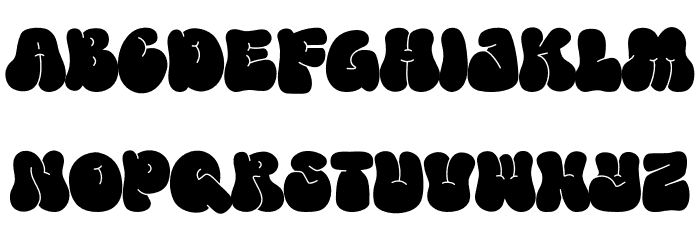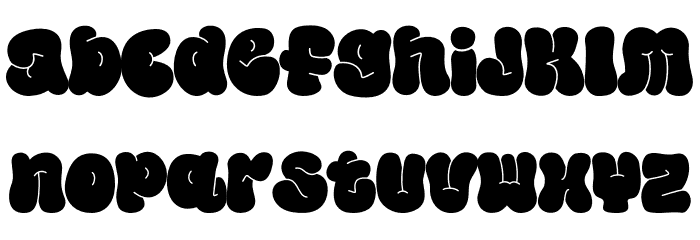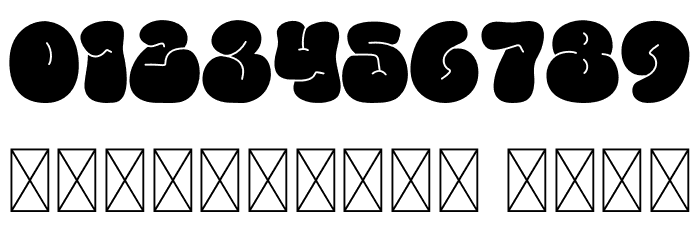
Whoopie Sunday DEMO Font
This font features a bold and playful design with thick, rounded shapes that give it a bubbly and whimsical appearance. The characters are heavily weighted, creating a strong visual impact. The overall style is reminiscent of retro or vintage designs, with a modern twist. The letters are closely spaced, enhancing the compact and cohesive look. The font's unique style makes it suitable for creative and fun projects, where a sense of playfulness is desired. The high contrast between the thick strokes and the negative space adds to its eye-catching nature.
A bold, playful font with thick, rounded shapes and a whimsical retro style.
- Font: Whoopie Sunday DEMO
- Proposed Projects: Ideal for children's books, playful branding, party invitations, or any project requiring a fun and lively typeface.
- Category: Decorative/Display
- Character Spacing: Tight
- Contrast: High
- Overall Style: Playful, Retro